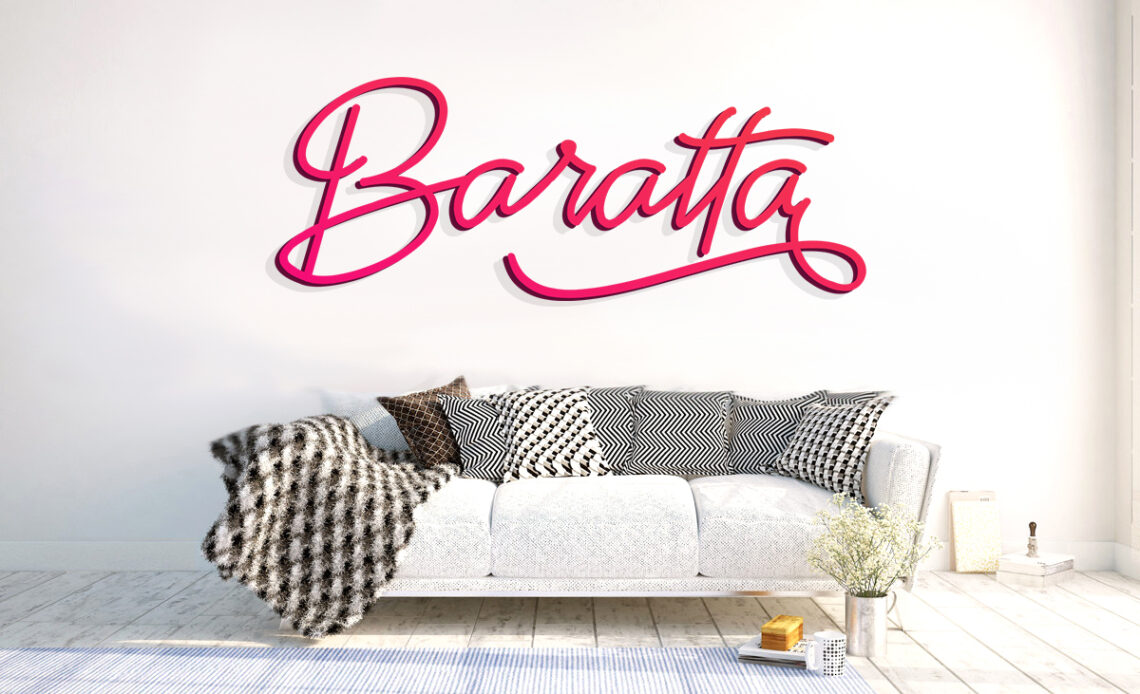
Introducing Baratta, the script font that breathes life into your designs! Picture this: a graceful dance of flowing strokes, each letter a masterpiece crafted with passion and flair. Baratta's monoline weight adds a touch of elegance, while the character alternates empower you to unleash your creativity, conjuring up designs that are as singular as your imagination.
Whether you're crafting eye-catching displays or headlines that demand attention, Baratta's got you covered. Its playful spirit lends itself perfectly to invitations, logos, and branding that exudes joy and whimsy. Imagine your audience captivated by the whimsical charm of Baratta, their eyes dancing across the page as they absorb your message with delight.
Baratta isn't just a font; it's an invitation to let your imagination soar. It's a font that sparks conversation, evokes emotions, and leaves a lasting impression. So, dive into the world of Baratta, where your designs blossom with captivating charm and boundless possibilities!